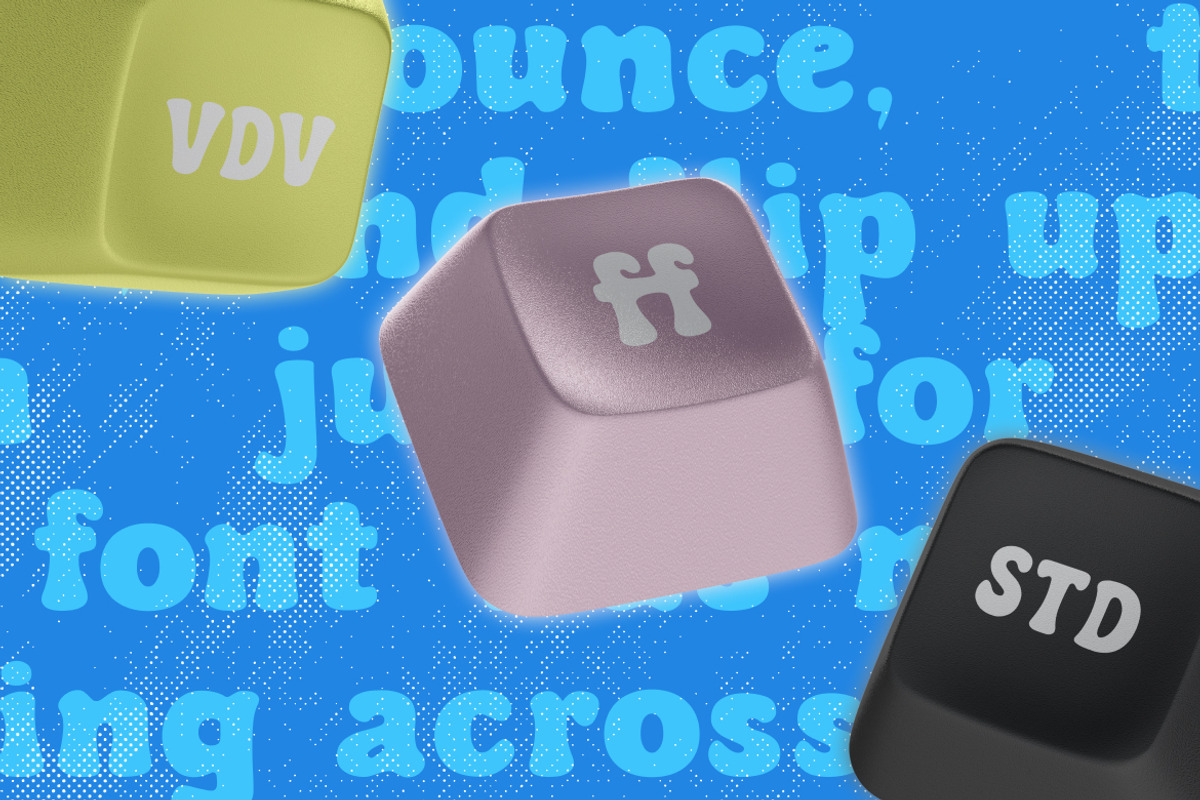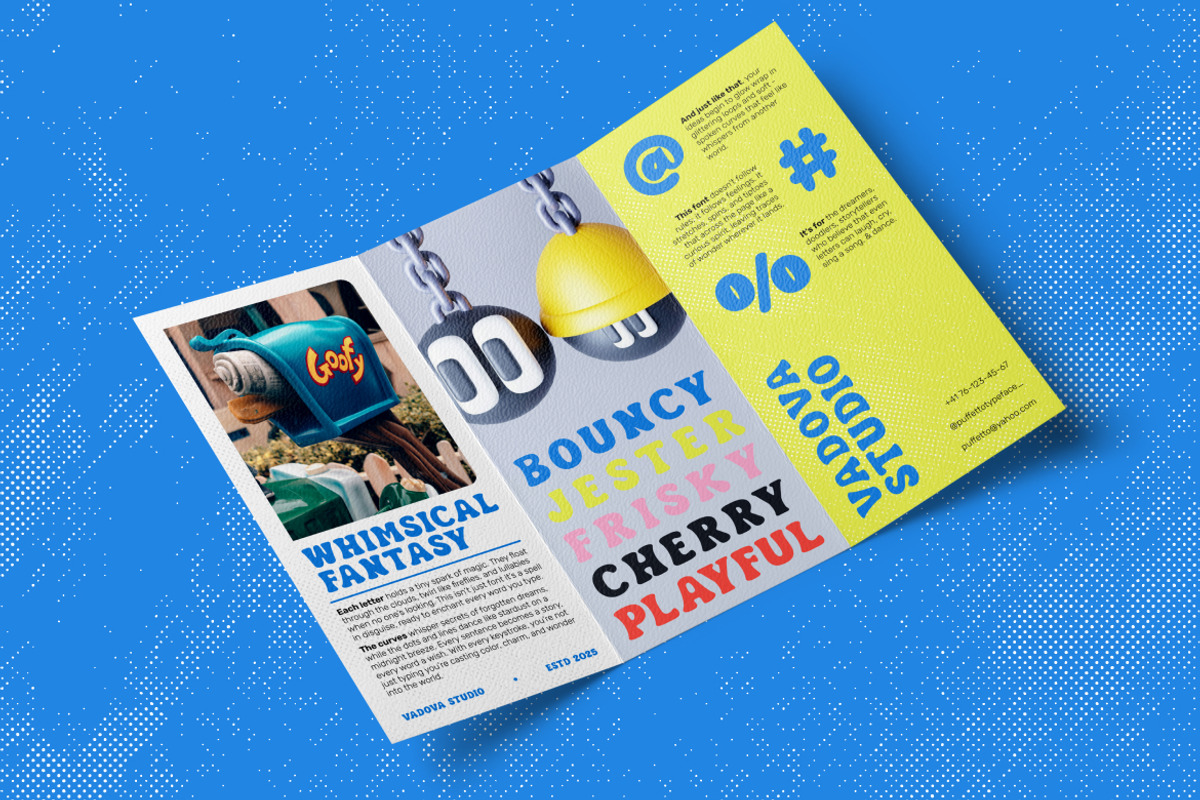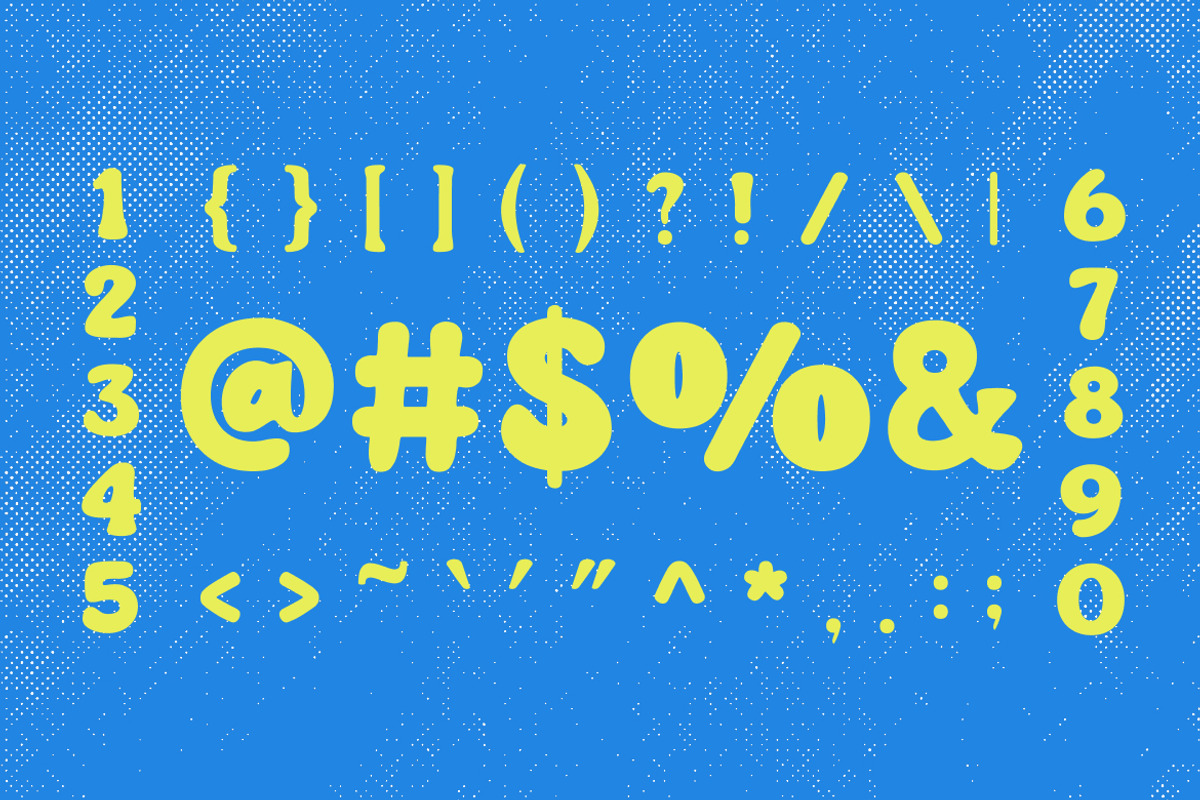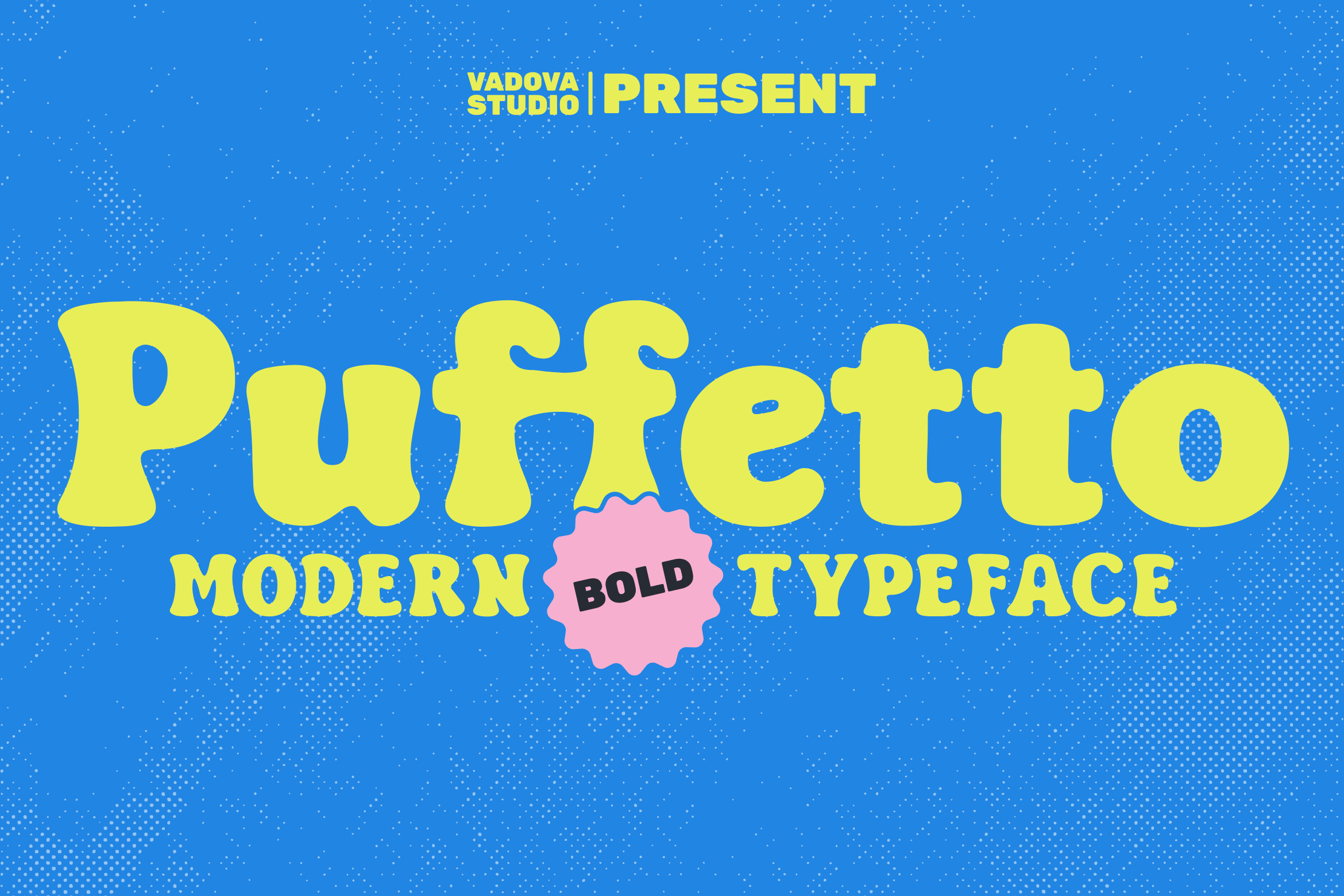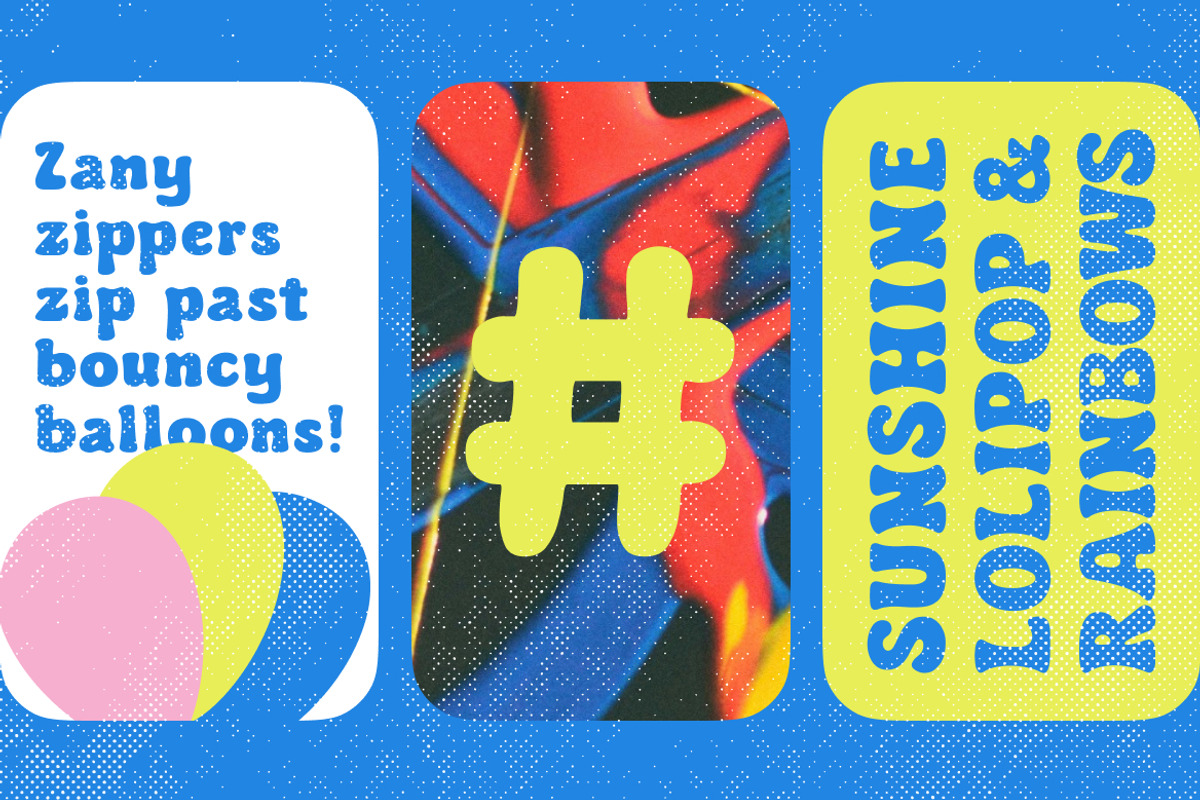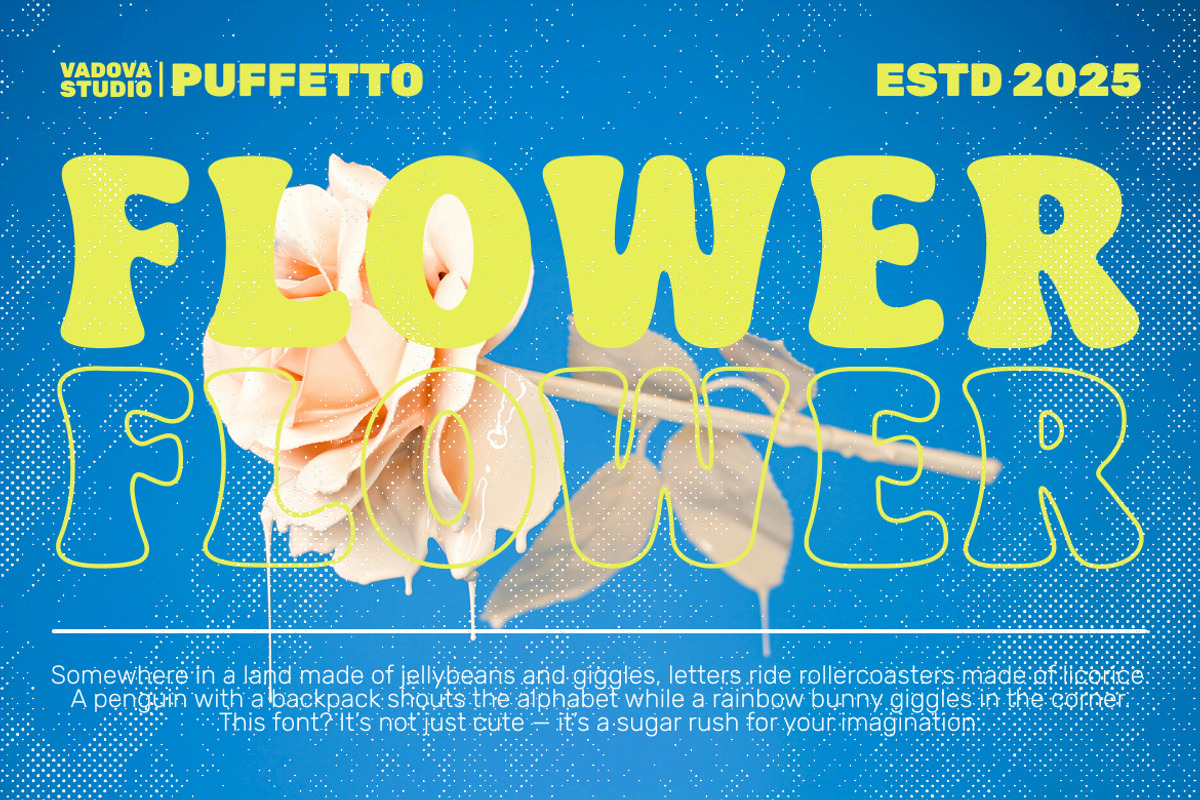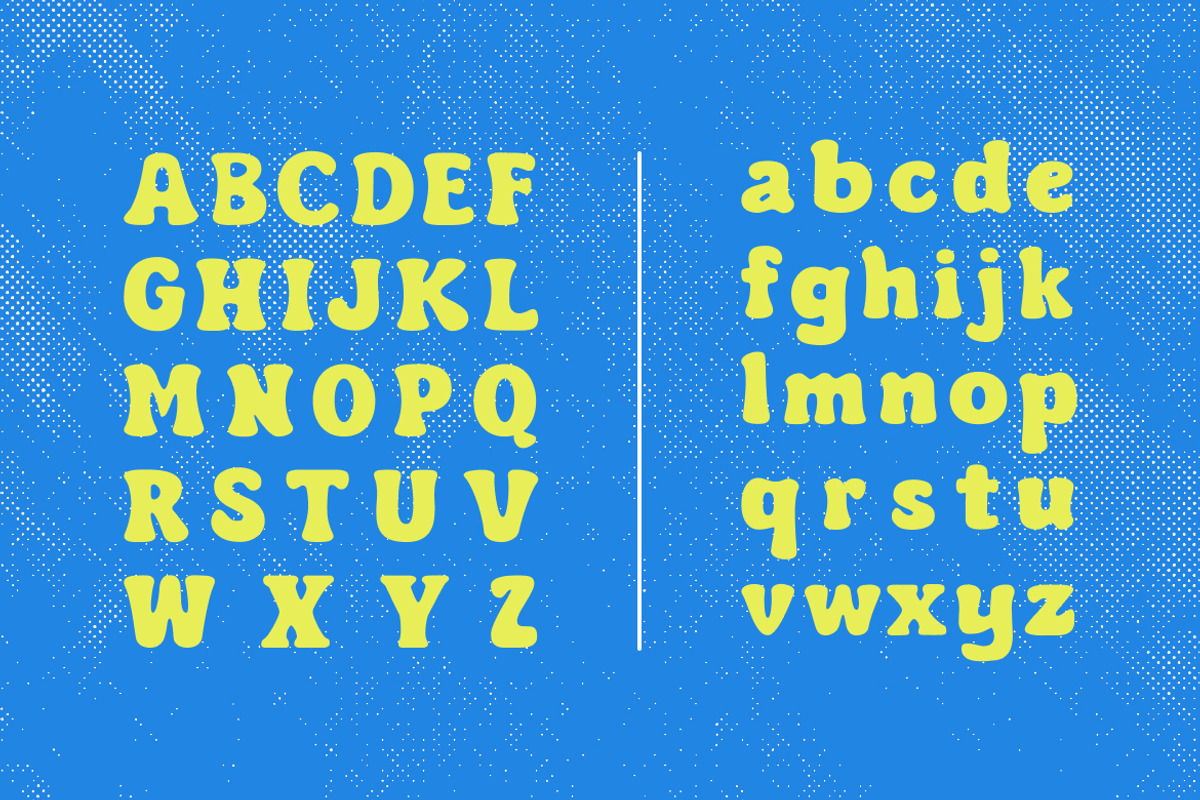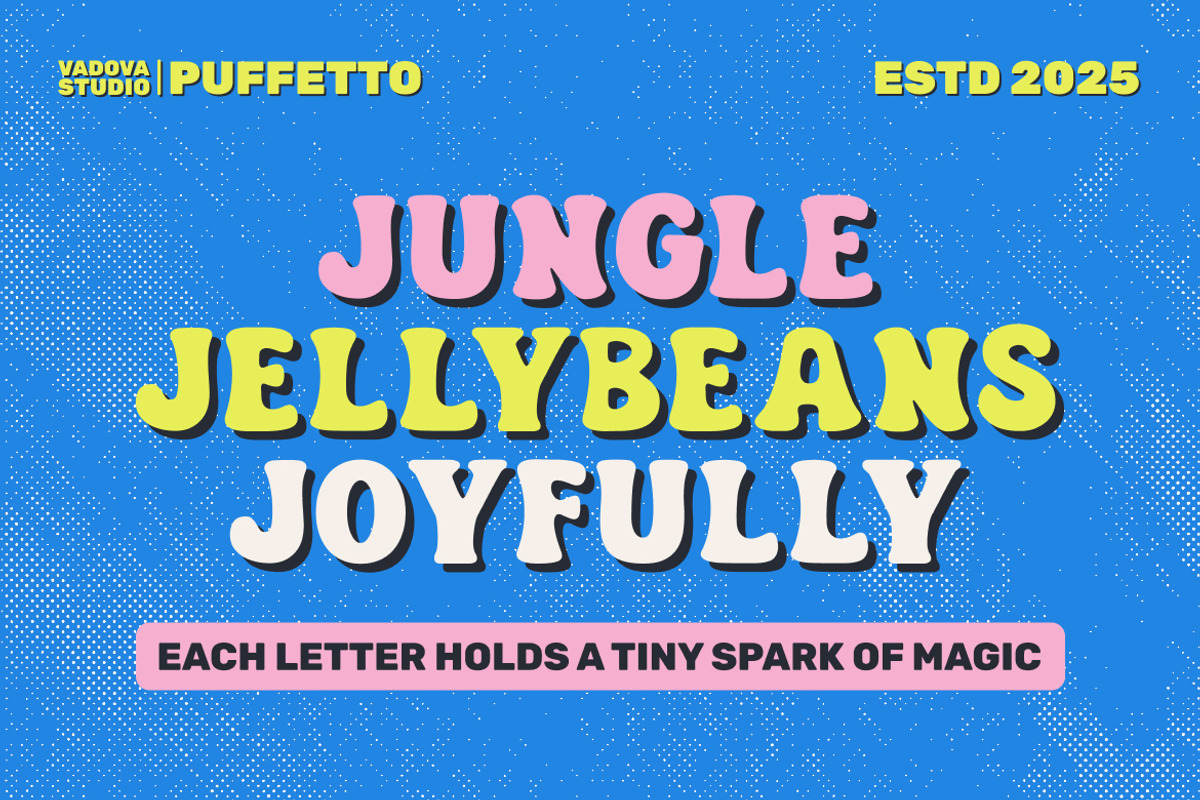
Pufetto Modern Bold Typeface Font
Puffetto is a cheerful and chunky bold typeface with a playful soul and retro flair. Featuring bouncy letterforms, soft curves, and an eye-catching presence, it’s perfect for fun-loving branding, vibrant posters, children’s designs, and bold headlines. This font includes full uppercase and lowercase alphabets, numerals, and essential punctuation. Its bubbly aesthetic and friendly vibe make Puffetto an excellent choice for modern creative projects that need a joyful touch.
Puffetto is ideal for branding projects, children’s books, educational games, toy packaging, event posters, birthday invitations, and any design that calls for a bold yet friendly type. Its retro cartoon aesthetic and rounded forms give it universal appeal in both digital and print formats. Puffetto works beautifully in children's content, playful posters, festive branding, educational materials, and lighthearted marketing campaigns..
- Bold rounded letterforms with a soft, bubbly character
- Playful proportions for a whimsical, childlike feel
- Smooth curves and thick strokes for high visual impact
- Consistent weight and rhythm for strong legibility
- Friendly, approachable aesthetic perfect for fun designs
- Kids-themed branding and playful product packaging
- Educational materials, worksheets, and storybooks
- Fun and colorful poster designs or event flyers
- Social media templates for lifestyle influencers
- Merch designs, stickers, and apparel with a quirky, cheerful vibe
Get noticed with Puffetto a bold display typeface made for fun, color, and creativity